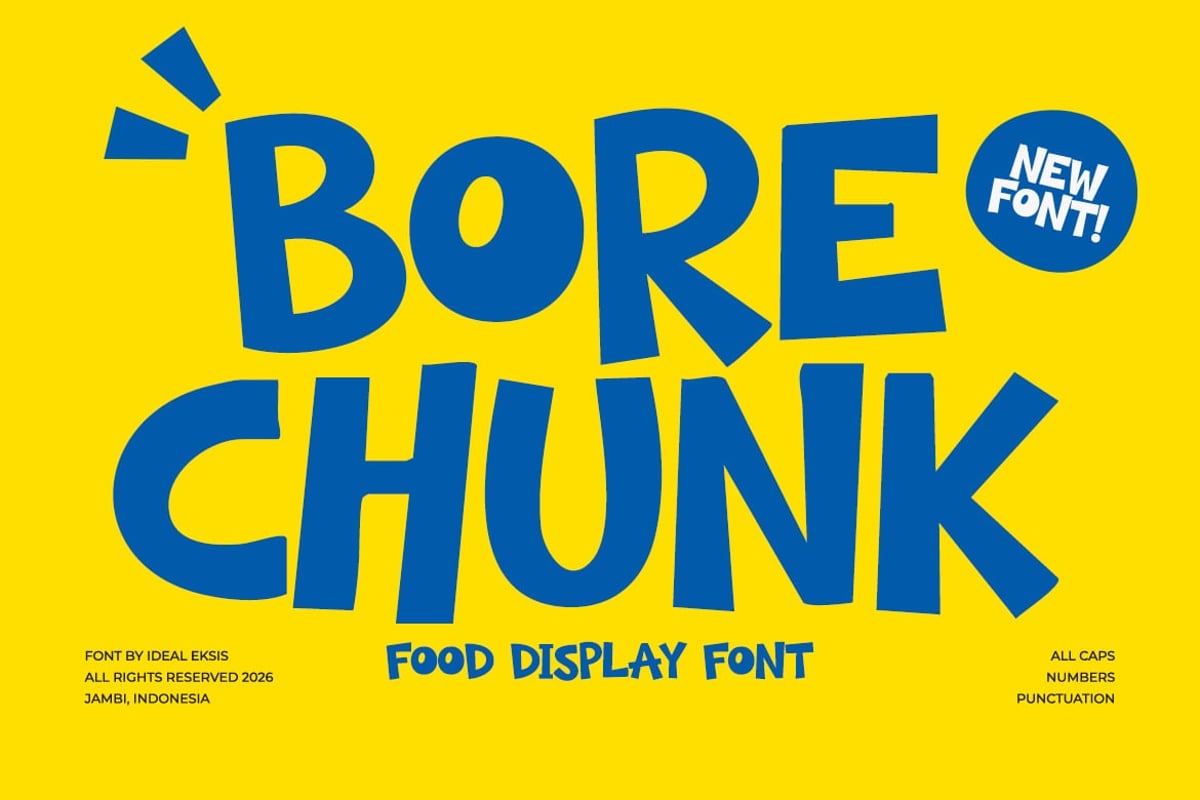
Bore Chunk - Food Font
Make a bold statement with Bore Chunk, the heavy-weight display font that brings chunky character to every design. This playful typeface features thick, bold letterforms with slightly irregular, hand-drawn edges that create an energetic and whimsical vibe. The chunky design ensures excellent legibility at large scales, while organic terminals add a unique, tactile quality that makes your text stand out. Perfect for high-impact headlines, poster designs, and branding projects that need a friendly...